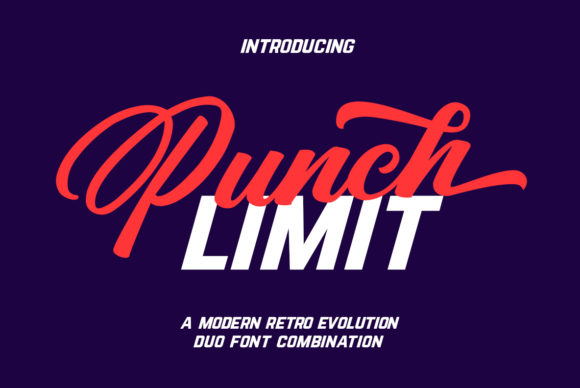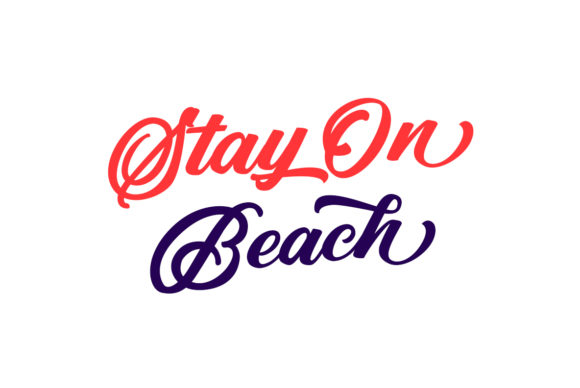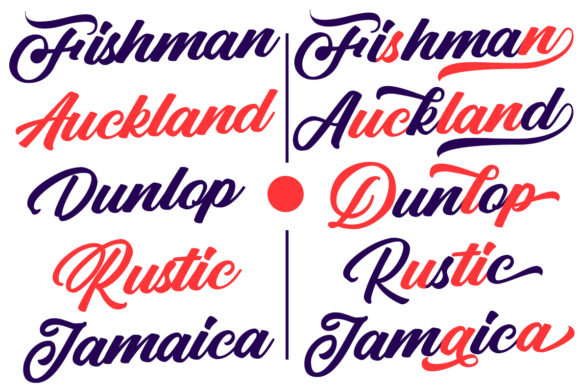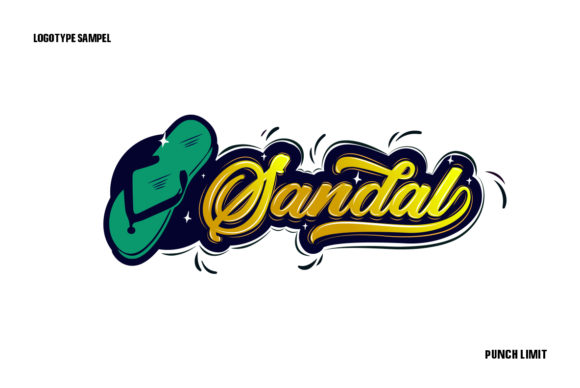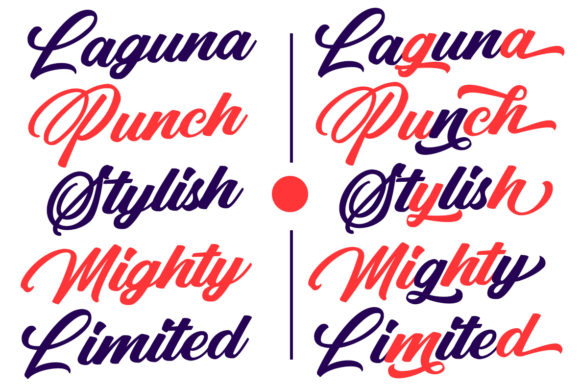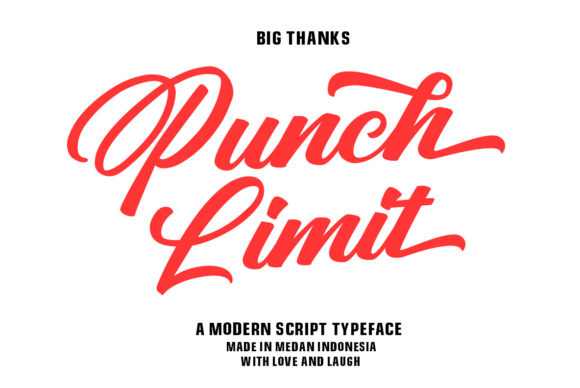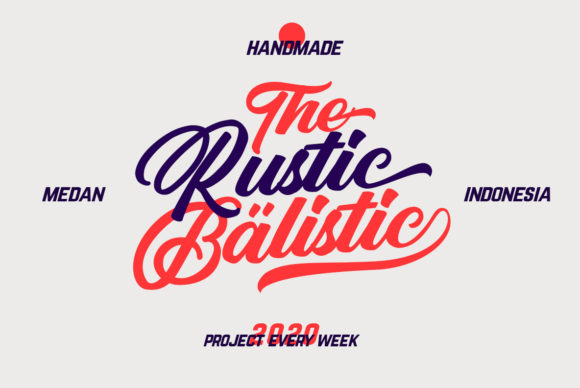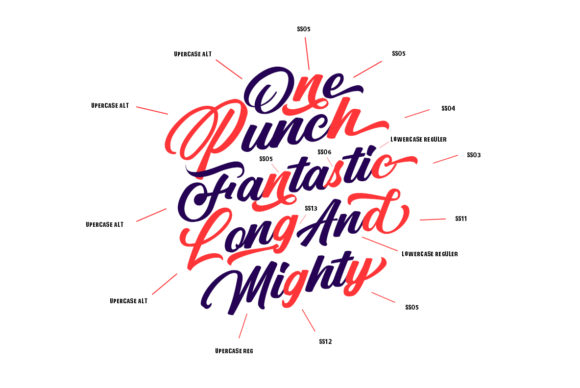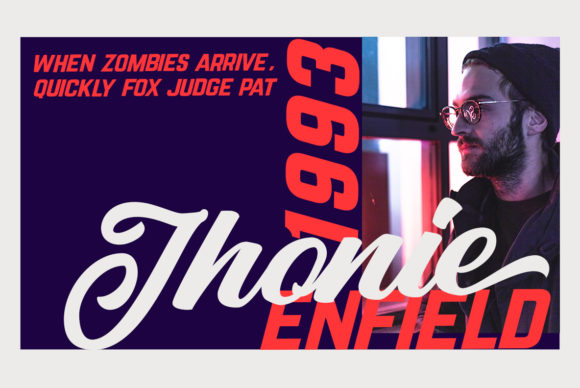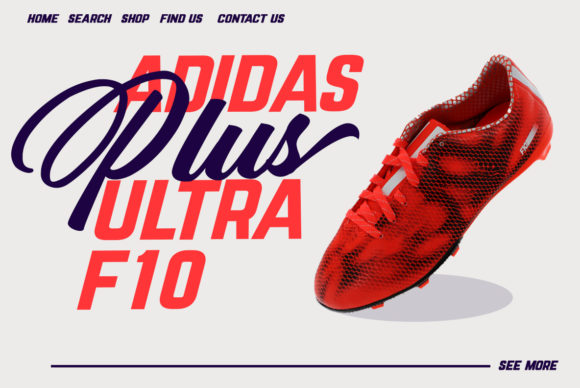
Punch Limit Duo Font
About Punch Limit Duo Font
Punch Limit is a dynamic font duo bringing together a gorgeous font and an elegant italic sans serif font which complement each other perfectly. It will look especially great on any gaming or sport-themed projects!